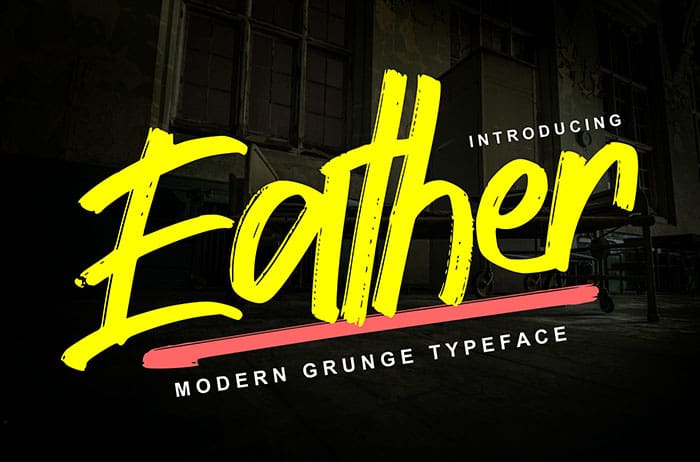
Eather Vintage Font
Eather is a modern vintage font with a grunge look. It will elevate a wide range of design projects to the highest level, be it branding, headings, wedding designs, invitations, signatures, logos, labels, and much more. Thanks to Vunira Studio for sharing this font! Take a look at this portfolio for more of his stunning fonts.